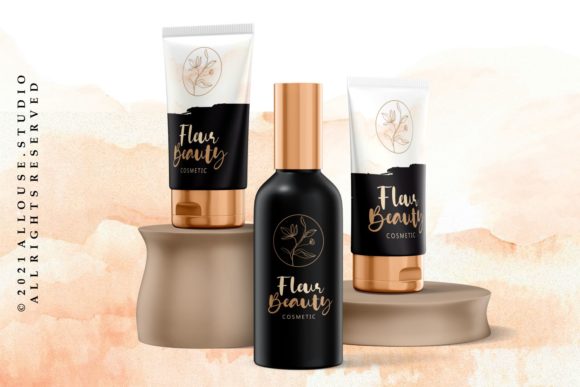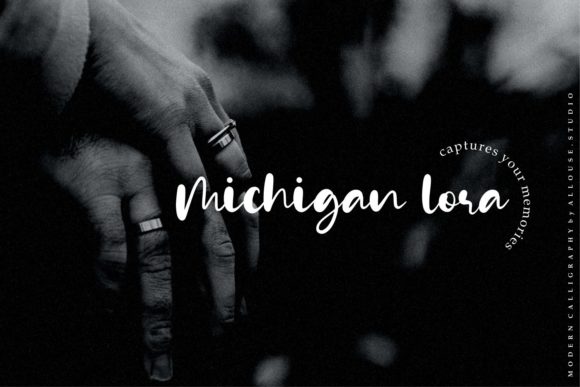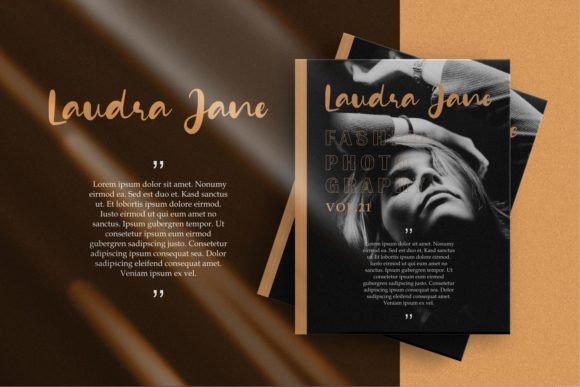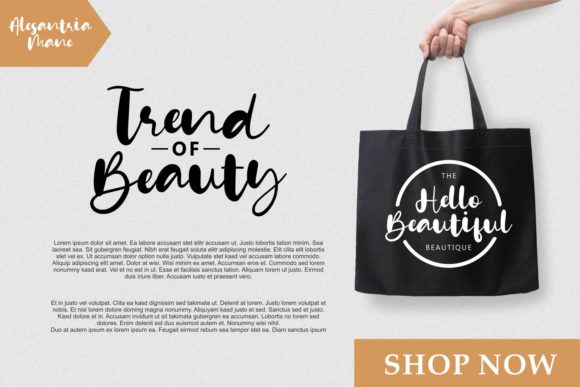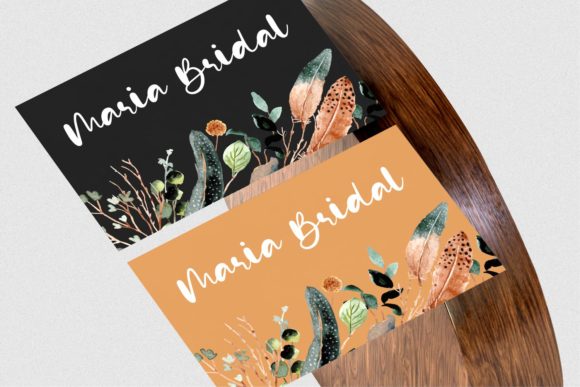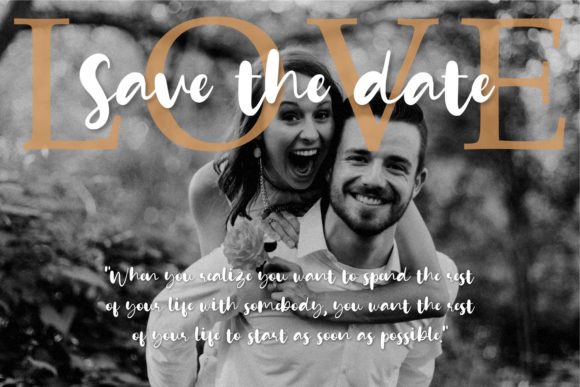
Unleash Your Creativity with Alesantria Mane Font
There’s nothing quite like the rush of inspiration that comes when you stumble upon the perfect font. You’re browsing through a collection of fonts, and suddenly, a bold and beautiful script catches your eye. It’s like a ray of sunshine has burst into your design world, and you can’t wait to see what magic you can create with it. This is exactly what happened to us when we discovered the Alesantria Mane Font.
This gorgeous handwritten font is designed to give your headlines and logotype projects a stylish touch. With its strong, confident, and dynamic feel, it’s the perfect addition to any design. Whether you’re looking to add a nostalgic character to your designs or simply want to make a statement, the Alesantria Mane Font is a valuable tool for any designer.
Alesantria Mane Font Key Features
- Font Family: Alesantria Mane is a script font.
- Unique Characteristics: Alesantria Mane features a unique, flowing script design with intricate connections between letters, making it ideal for use in titles, headings, and other display typography.
Alesantria Mane Font Review
Alesantria Mane Font is a beautiful, elegant script font designed to evoke a sense of sophistication and refinement. I was immediately drawn to its ✨ delicate and flowing lines, which add a touch of whimsy to any text.
- ✨ Elegant and refined aesthetic
- ✨ Perfect for headings, titles, and quotes
- ✨ Suitable for a wide range of industries, from fashion to luxury brands
- ✨ Supports a variety of languages, making it a great option for multilingual designs
However, I did encounter a few limitations with the Alesantria Mane Font:
- ⚠️ May be difficult to read at very small font sizes
- ⚠️ Limited character set, which may cause issues with certain special characters or symbols
- ⚠️ Not ideal for body text, as it can be quite dense and difficult to read in large blocks
I would highly recommend the Alesantria Mane Font for designers looking to add a touch of elegance and sophistication to their projects. While it may have some limitations, its unique aesthetic and versatility make it a valuable addition to any font collection.
Alesantria Mane is a versatile font suitable for various design projects, including:
- Birth announcements and baby shower invitations
- Quotes and motivational posters
- Personalized gifts and certificates
Tips for Getting the Most Out of Alesantria Mane
For best results, use Alesantria Mane in combination with other elegant fonts, such as serif or sans-serif fonts. Experiment with different font sizes, colors, and arrangements to create visually appealing designs.